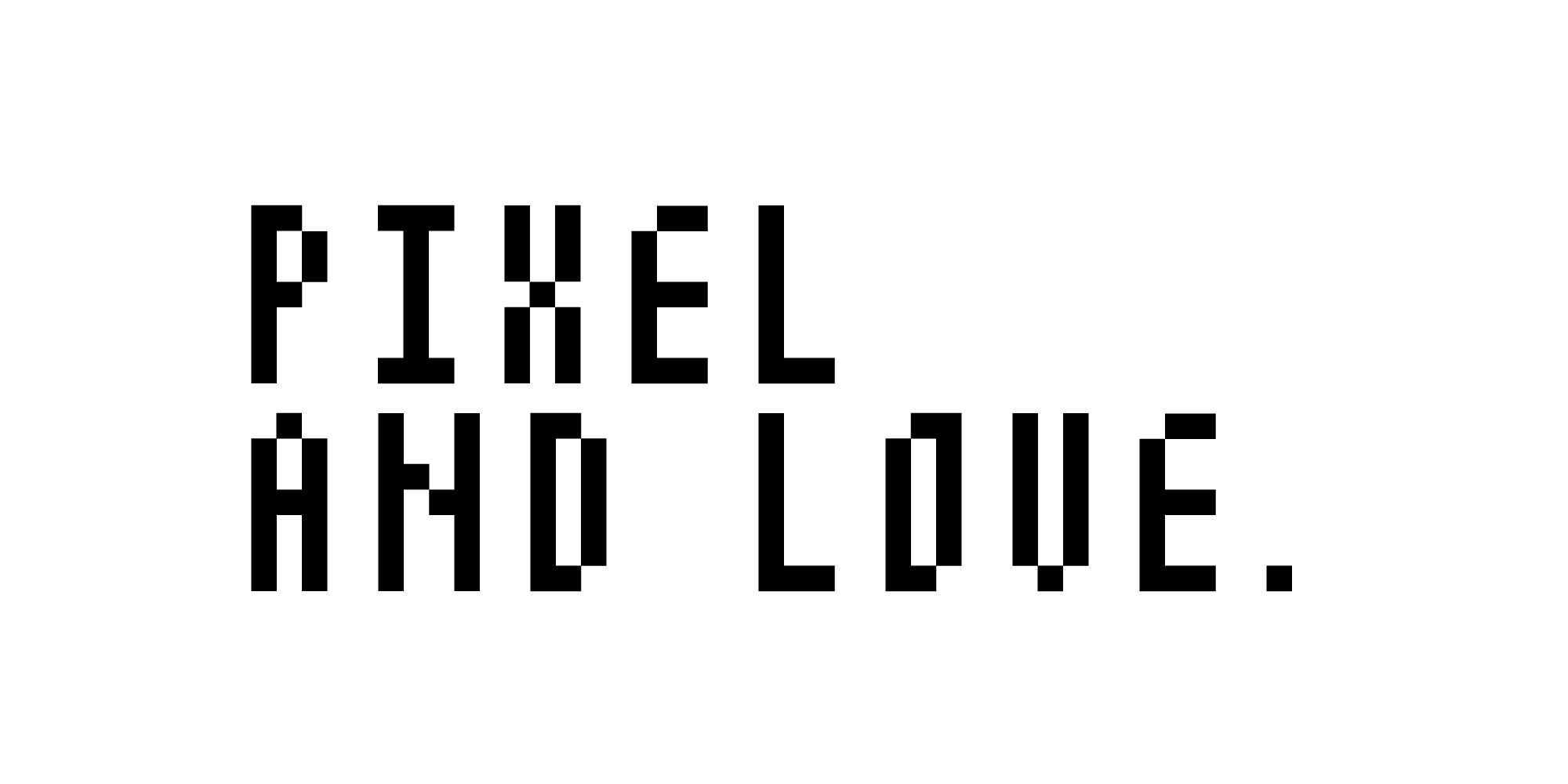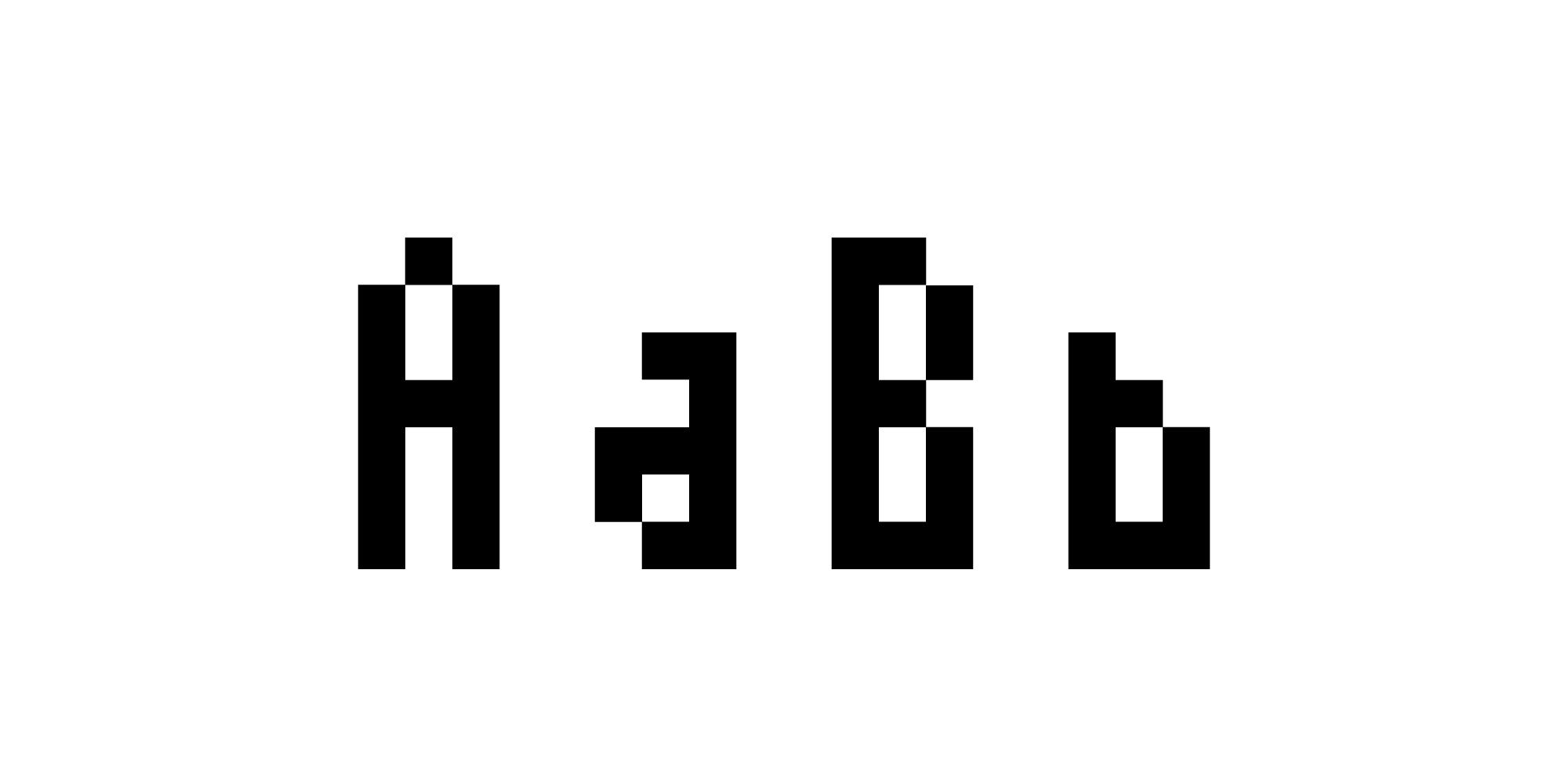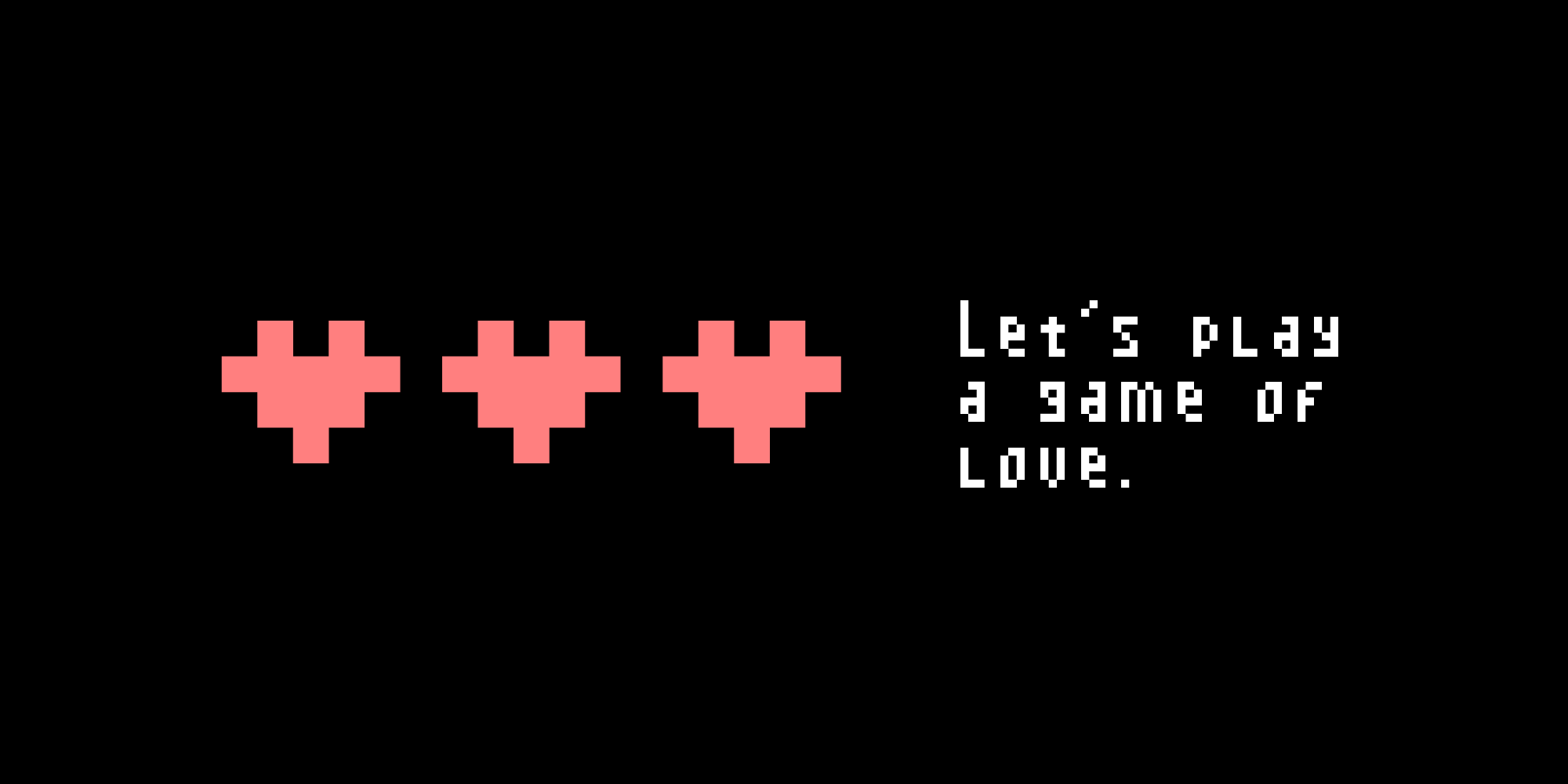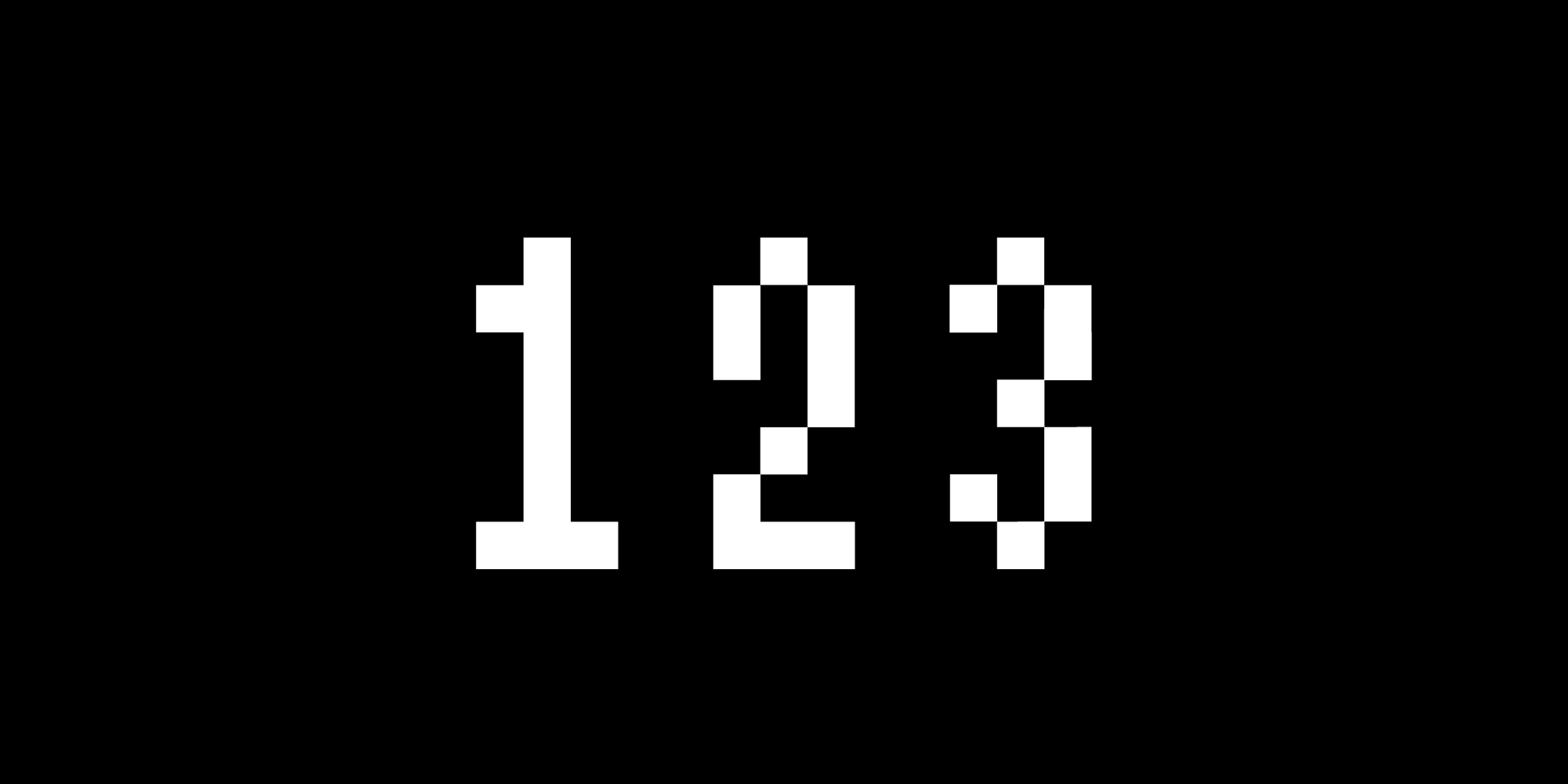
MBF Pexo
Journey of the square pants
Moonbandit presents Pexo. a free pixel font.This typeface comes with uppercase, lowercase and punctuations. Pexo is a perfect pixel font for logo, poster, display and many other projects.
Monospace